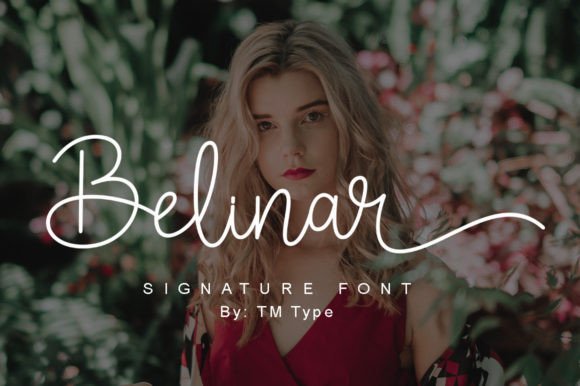
Welcome to the realm of Belinar Font, where elegance and sophistication converge to offer you a font that will transform your creative vision into a breathtaking masterpiece. Immerse yourself in the world of minimalism, where simplicity and beauty intertwine to create a style that is both timeless and utterly captivating.
Belinar Font, a script font crafted with precision and artistry, is the perfect companion for discerning designers and individuals seeking a font that radiates sophistication. Its graceful strokes and elegant curves lend an air of luxury and refinement to any project, whether it be branding, logos, signatures, invitations, or any other endeavor that calls for a touch of handwritten charm.
Step into a world of boundless creativity, where your imagination knows no bounds. Belinar Font opens up a myriad of possibilities, inviting you to explore the depths of your creativity and express yourself in ways you never thought possible. Let your designs come alive with the captivating allure of Belinar Font, where every letter dances across the page with effortless grace and poise.
Discover the allure of Belinar Font, a font that will elevate your work to new heights of sophistication. Its timeless beauty and versatility make it an indispensable tool for designers seeking to create truly remarkable and unforgettable designs. Elevate your brand, captivate your audience, and leave a lasting impression with Belinar Font.
Unlock the power of Belinar Font today and embark on a journey of creative exploration. Let your designs shine with unparalleled elegance and grace, and experience the joy of creating something truly extraordinary. Embrace the essence of minimalism and elevate your work to a new level of excellence with Belinar Font.